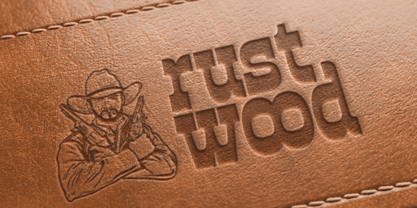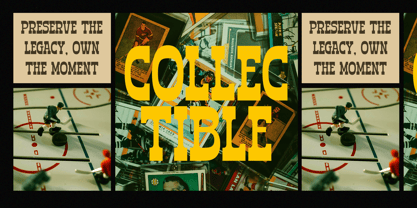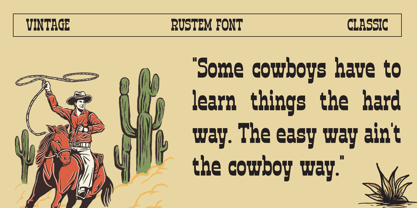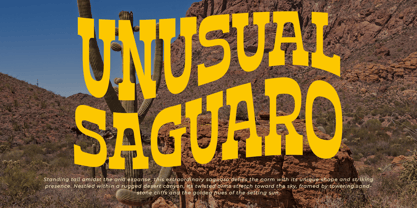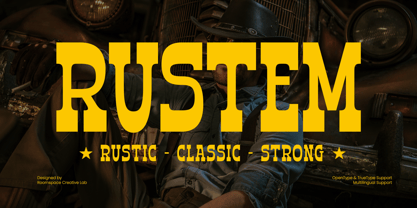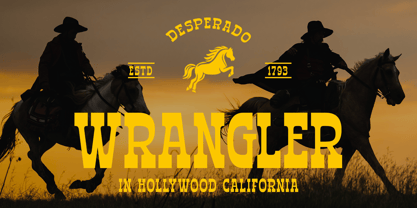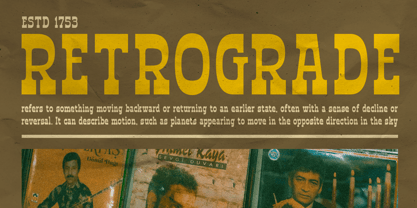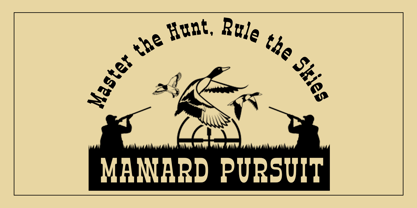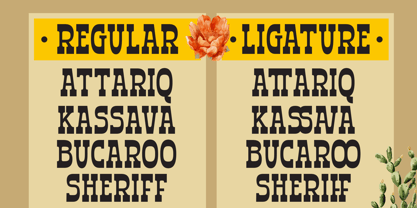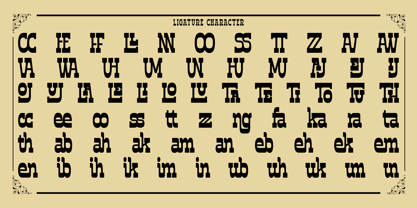
Rustem
by Jafar07
The Rustem Font Family was designed by Bakhrudin Ja'far and published by Jafar07. Rustem contains 2 styles and family package options. More about this family
Rustem Bold is a arugged spirit of the Wild West, a powerful vintage serif inspired by classic Western typography. Designed for those who crave strong, rustic aesthetics, Rustem blends bold letterforms with old-fashioned charm, making it a perfect choice for logotypes, branding, editorial design, signage, and high-impact headlines. With its thick, heavy strokes and classic Western details, Rustem evokes the essence of Americana, cowboy culture, and vintage saloon signage, all while maintaining a touch of elegance and versatility. Whether you’re crafting bold branding, rustic packaging, or eye-catching posters, Rustem delivers a nostalgic yet timeless appeal.